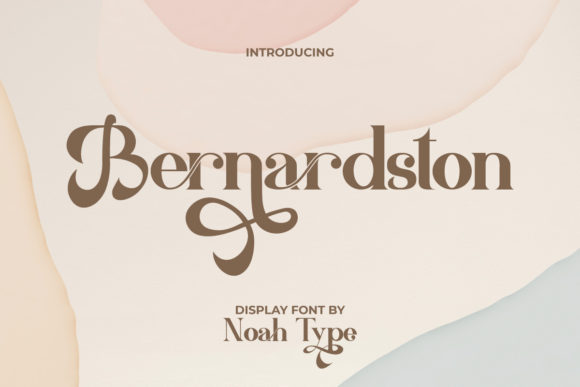
In a world saturated with digital content, it's the subtle nuances that differentiate the ordinary from the extraordinary. Bernardston, a captivating serif font, emerges as a beacon of elegance and distinction, inviting you to elevate your designs to new heights. Its meticulously crafted curves and refined lines exude a timeless allure, evoking a sense of sophistication and poise.
With its PUA encoding, Bernardston empowers you with the freedom to effortlessly access a treasure trove of glyphs and swashes. Unleash your creativity and seamlessly incorporate these embellishments into your designs, adding layers of visual intrigue that captivate the beholder.
More than just a font, Bernardston is a versatile tool that adapts effortlessly to a myriad of creative endeavors. Whether you're crafting logos that demand attention, designing websites that exude elegance, or composing captivating social media graphics, Bernardston rises to the occasion, transforming your words into works of art.
Imagine the impact of an Instagram post adorned with Bernardston's sophisticated charm, drawing the eyes of your followers and inciting a ripple of admiration. Let your blog posts radiate an aura of authority and knowledge, as Bernardston's refined characters guide your readers through your compelling narratives.
Bernardston possesses an innate ability to transform the ordinary into the extraordinary. It's the font that breathes life into your creative visions, captivating audiences and leaving a lasting impression. Embrace Bernardston and unlock a world of design possibilities that transcend the boundaries of the mundane.